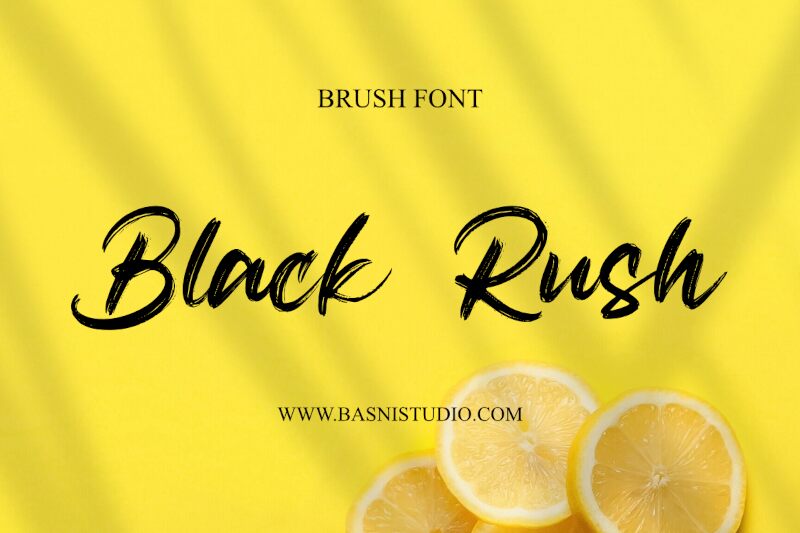
Black Rush font was designed by Basni.std. This free brush font is dynamic, expressive, and energetic. It is filled with artistic textured details that make it interesting to look at and very eye-catching. Black Rush falls under the informal style category and is an asset for contemporary applications.
Besides being hand-drawn and vibrant, this font’s flowing letter designs make it perfect for many creative projects. Applications include branding, packaging, logos, headings, posters, social media graphics, and more. Gyms, fitness studios, spas, and alternative therapy clients would love this one!